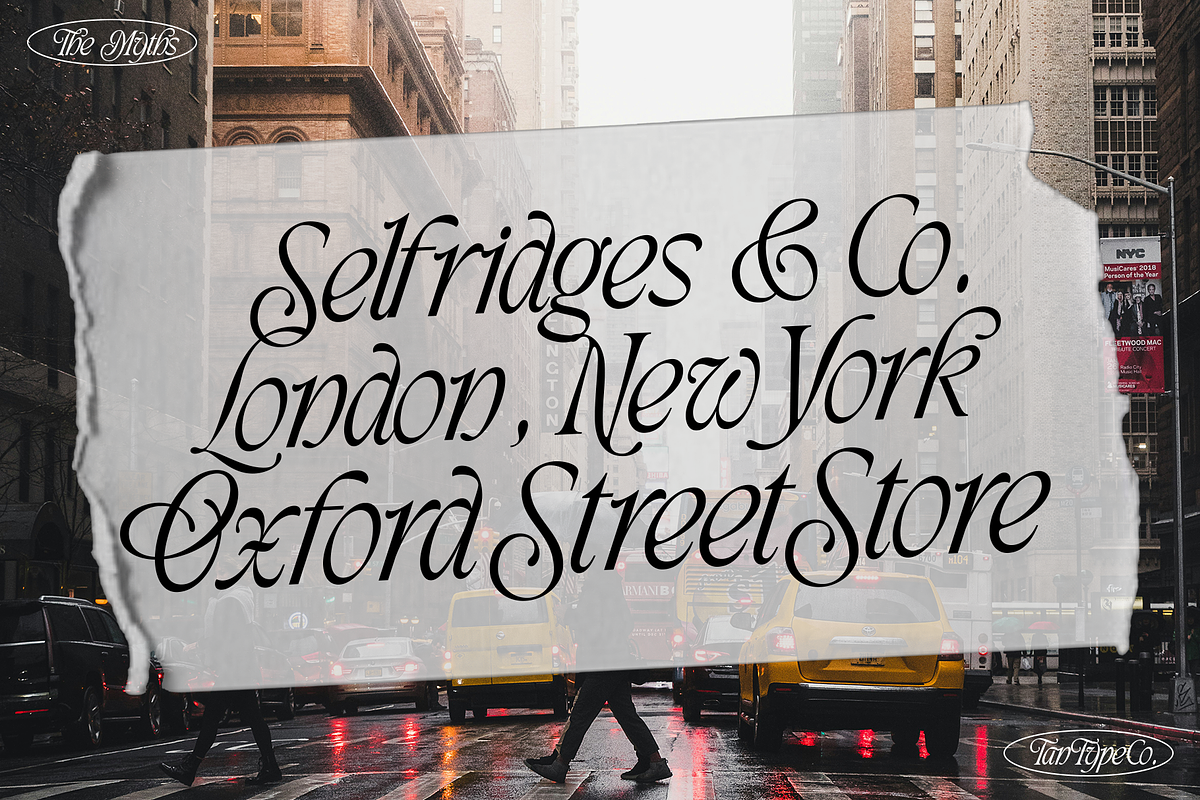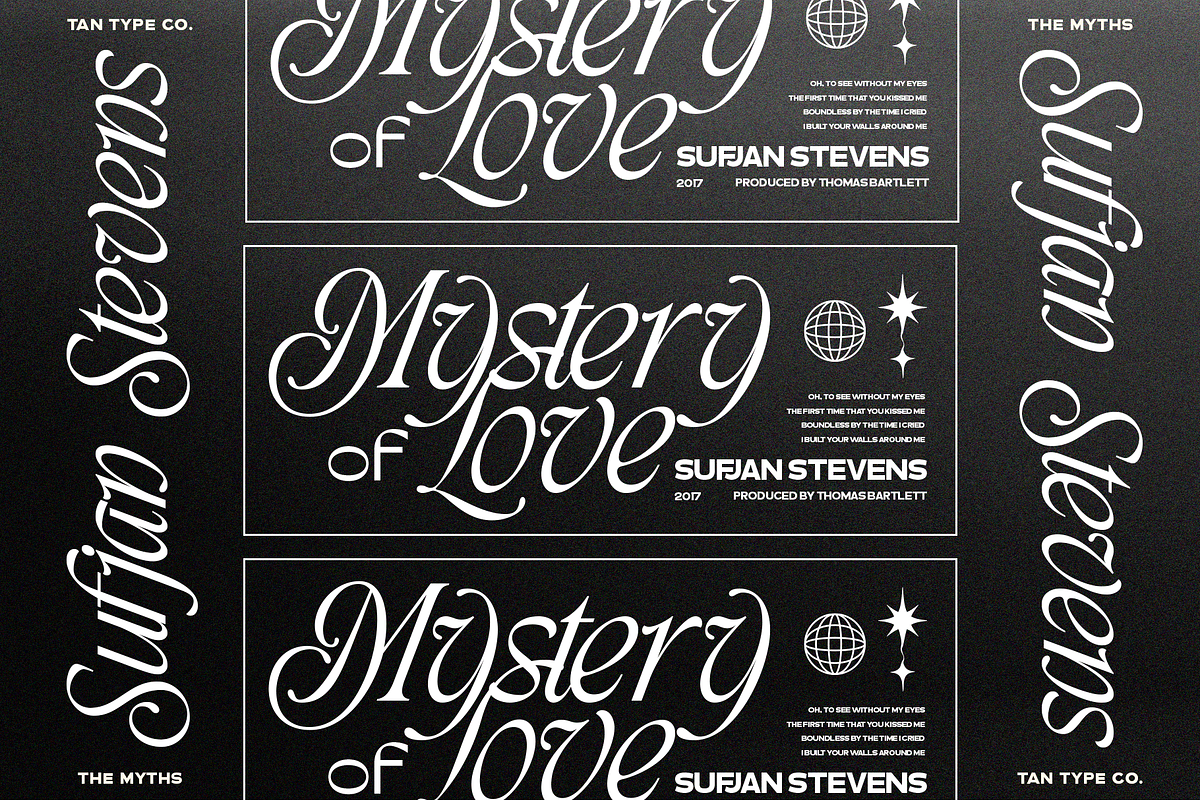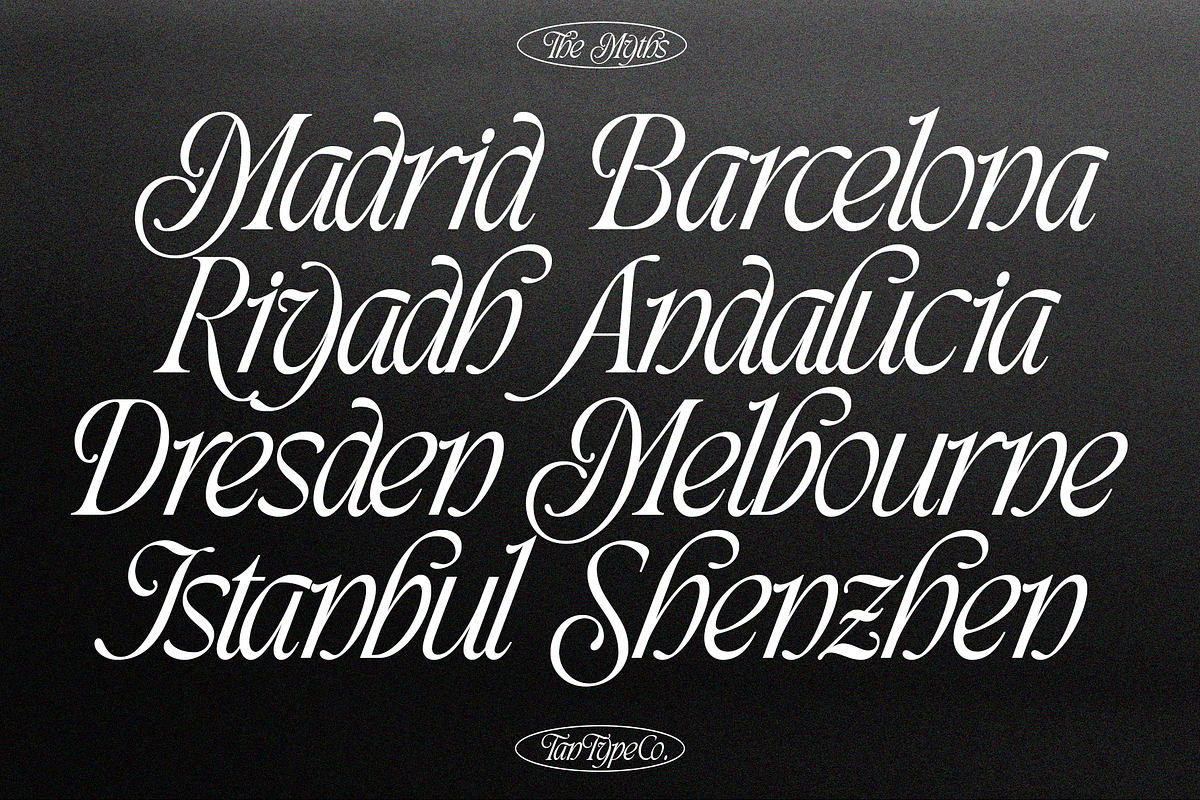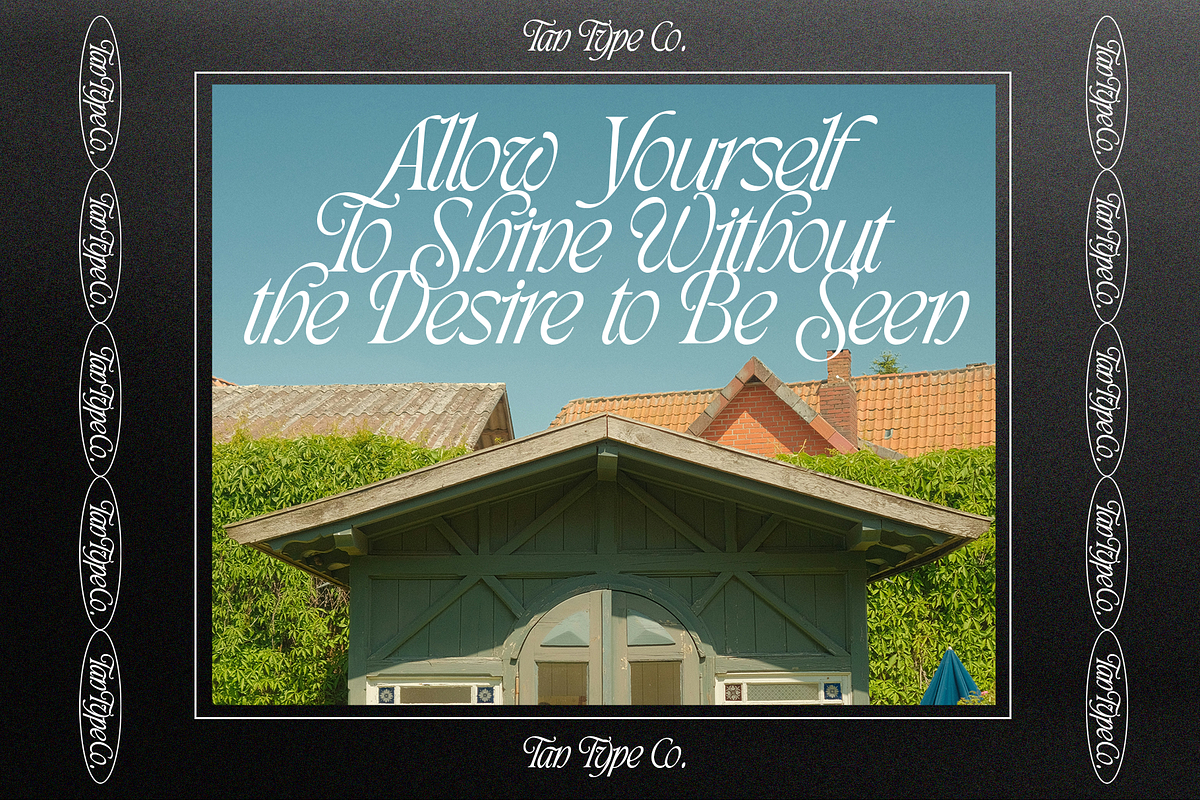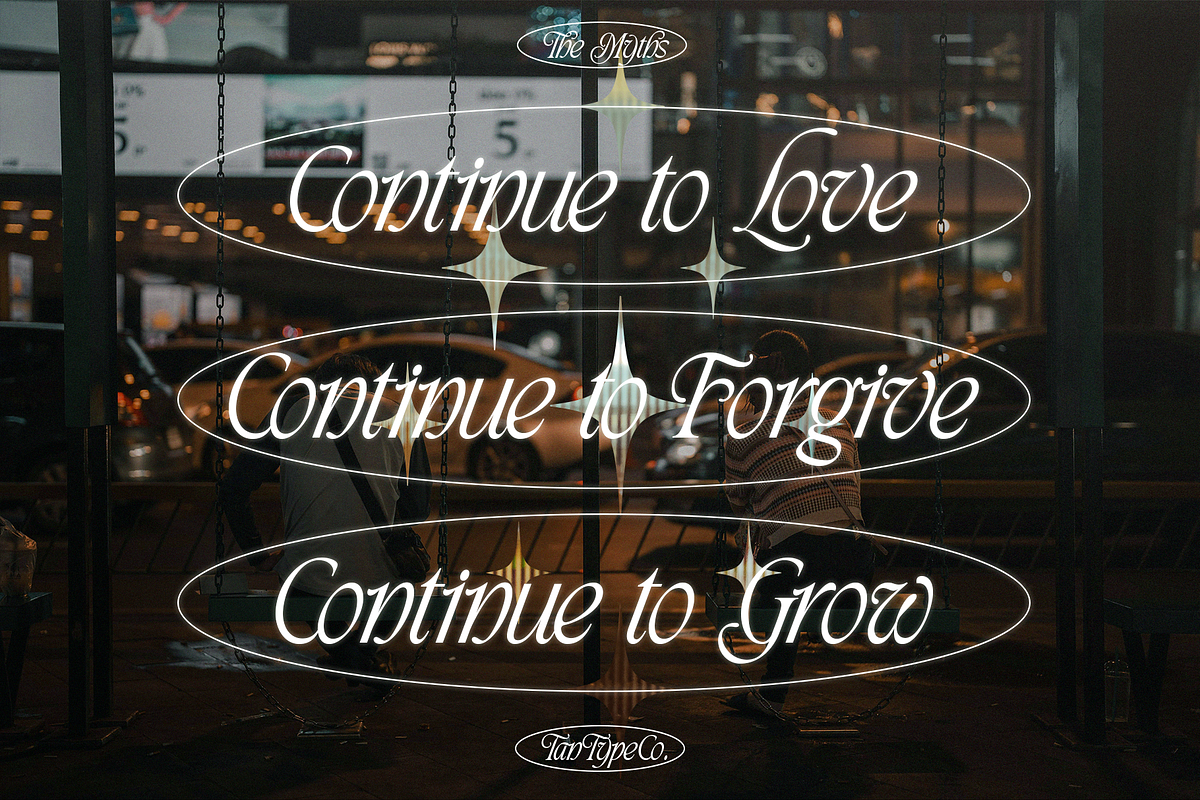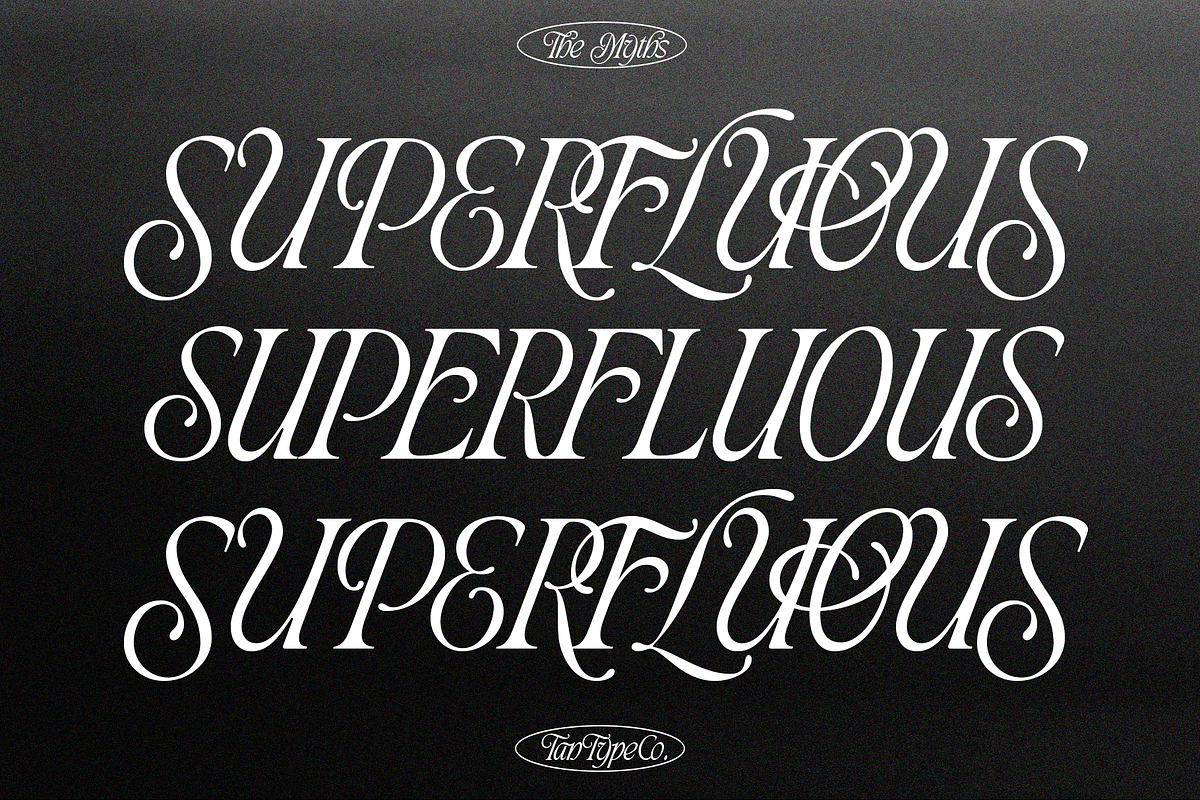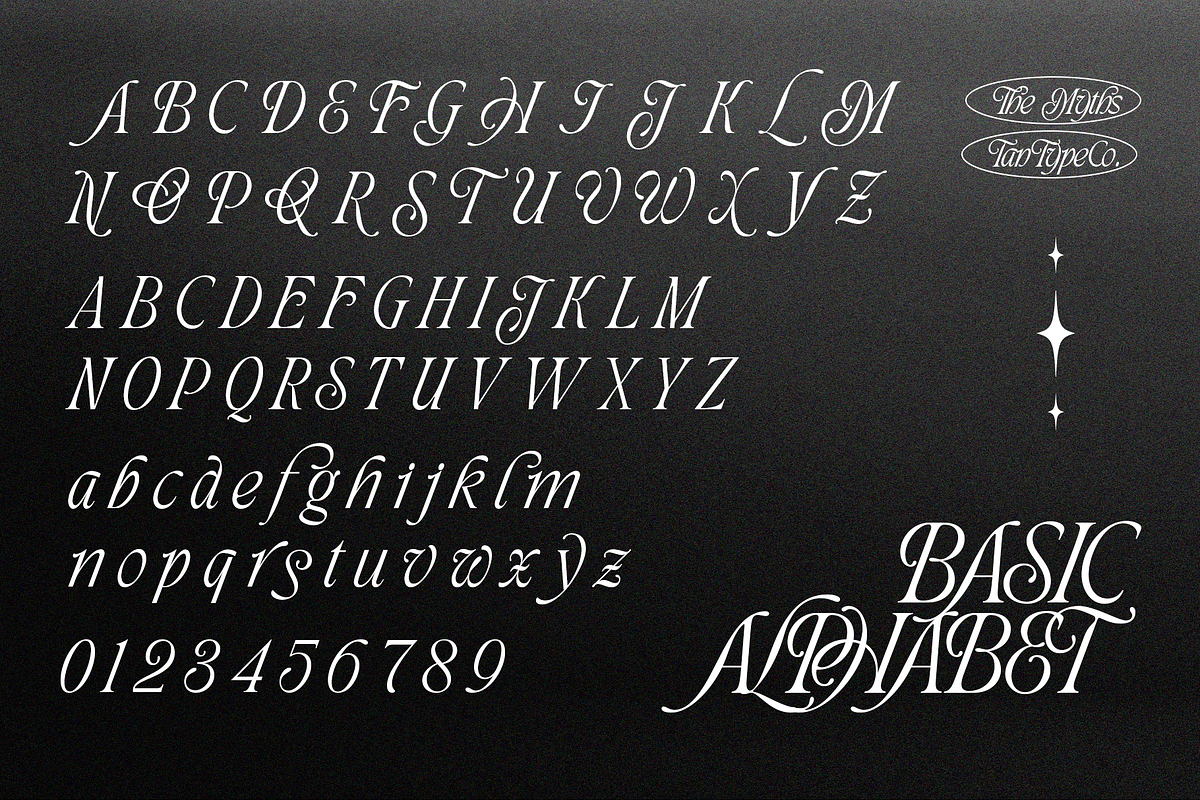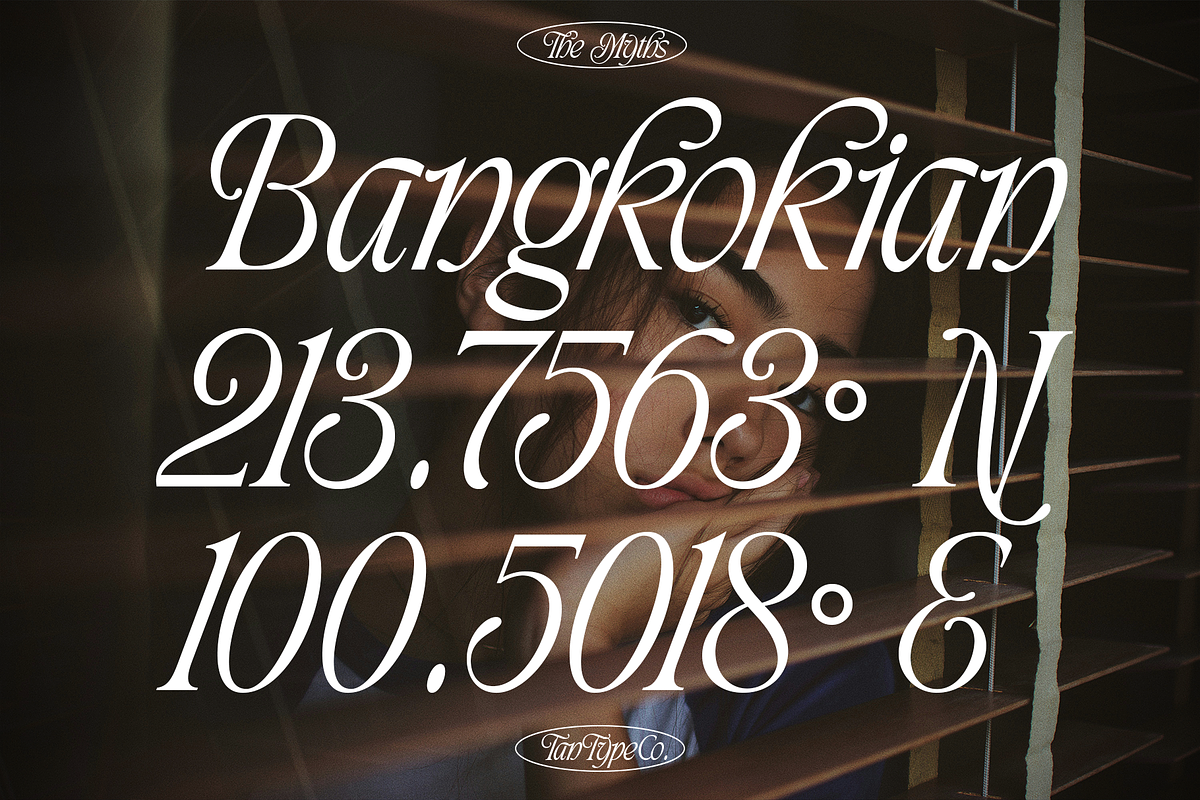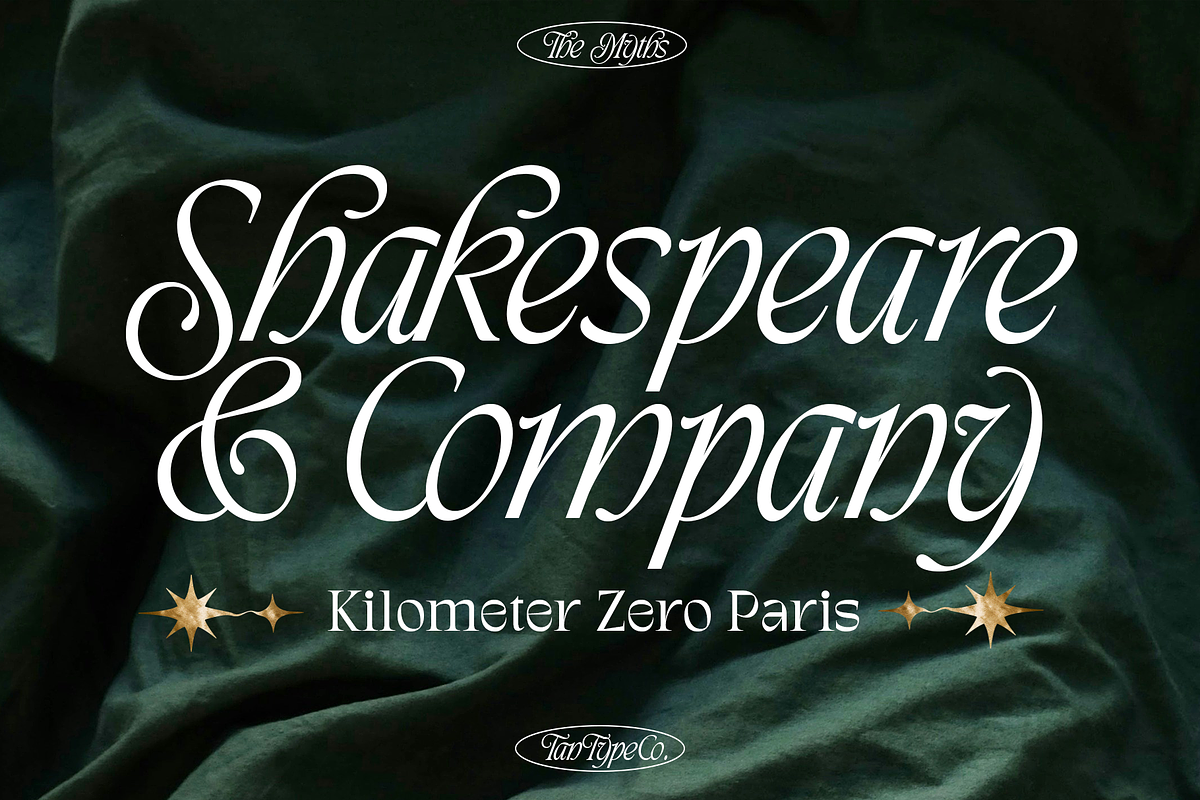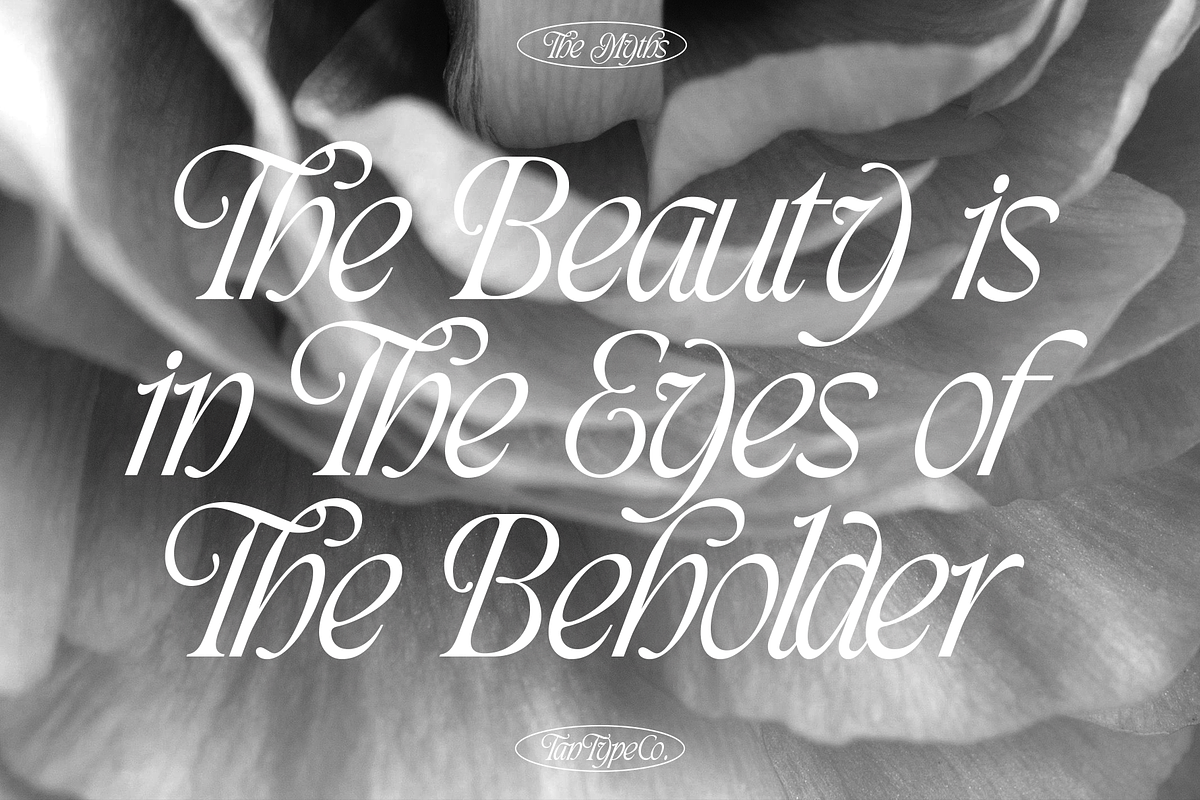
TAN - THE MYTHS
Tan Type Company presents THE MYTHS, a classic serif with a romantic touch. Classy, fun while keeping in touch with the modern time. Quintessentially timeless.